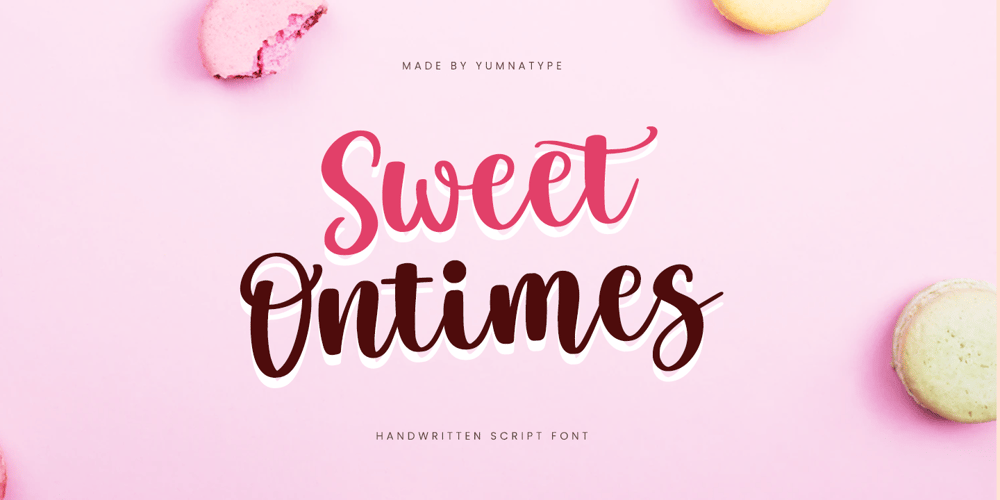
Sweet Ontimes Font Family was designed by Donis Miftahudin and published by Yumna Type. Sweet Ontimes contains 1 styles and family package options. Sweet Ontimes is a delightful handwritten font that captures the essence of elegance and simplicity. Each letter in Sweet Ontimes flows seamlessly into the next, creating a smooth and cohesive look reminiscent of natural handwriting. The connected letters lend a sense of fluidity and grace, making the font perfect for designs that aim to convey a personal and inviting feel.The low contrast in Sweet Ontimes ensures a harmonious and balanced appearance, maintaining a consistent stroke width throughout the letters. This subtlety enhances its readability and approachable aesthetic. In addition, enjoy the features here.Features: Alternates Ligatures Multilingual Supports PUA Encoded Numerals and Punctuations Sweet Ontimes fits in headlines, logos, posters, flyers, branding materials, print media, editorial layouts, and many more designs. Find out more ways to use this font by taking a look at the font preview.Thanks for purchasing our fonts. Hopefully, you have a great time using our font. Feel free to contact us anytime for further information or when you have trouble with the font. Thanks a lot and happy designing.